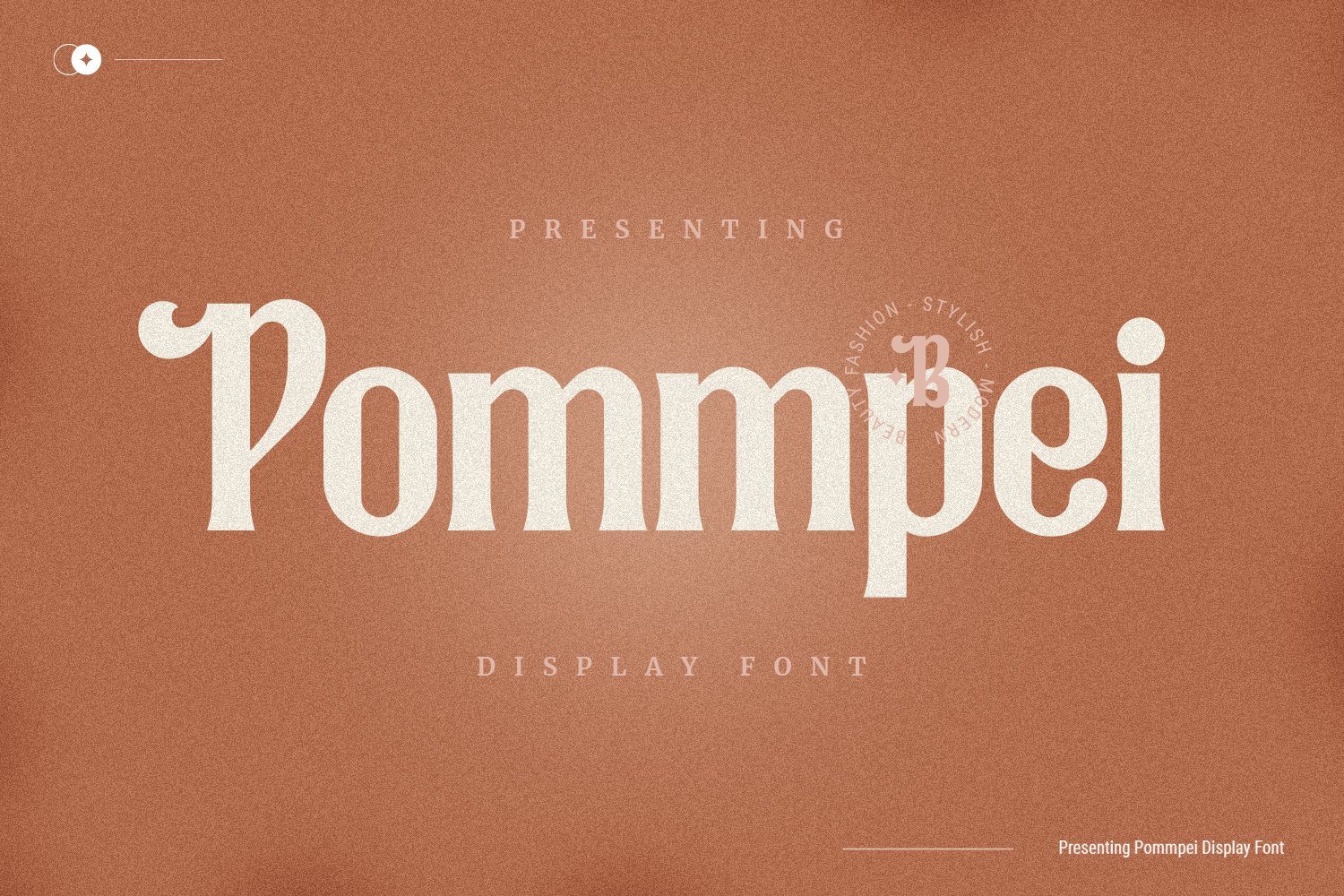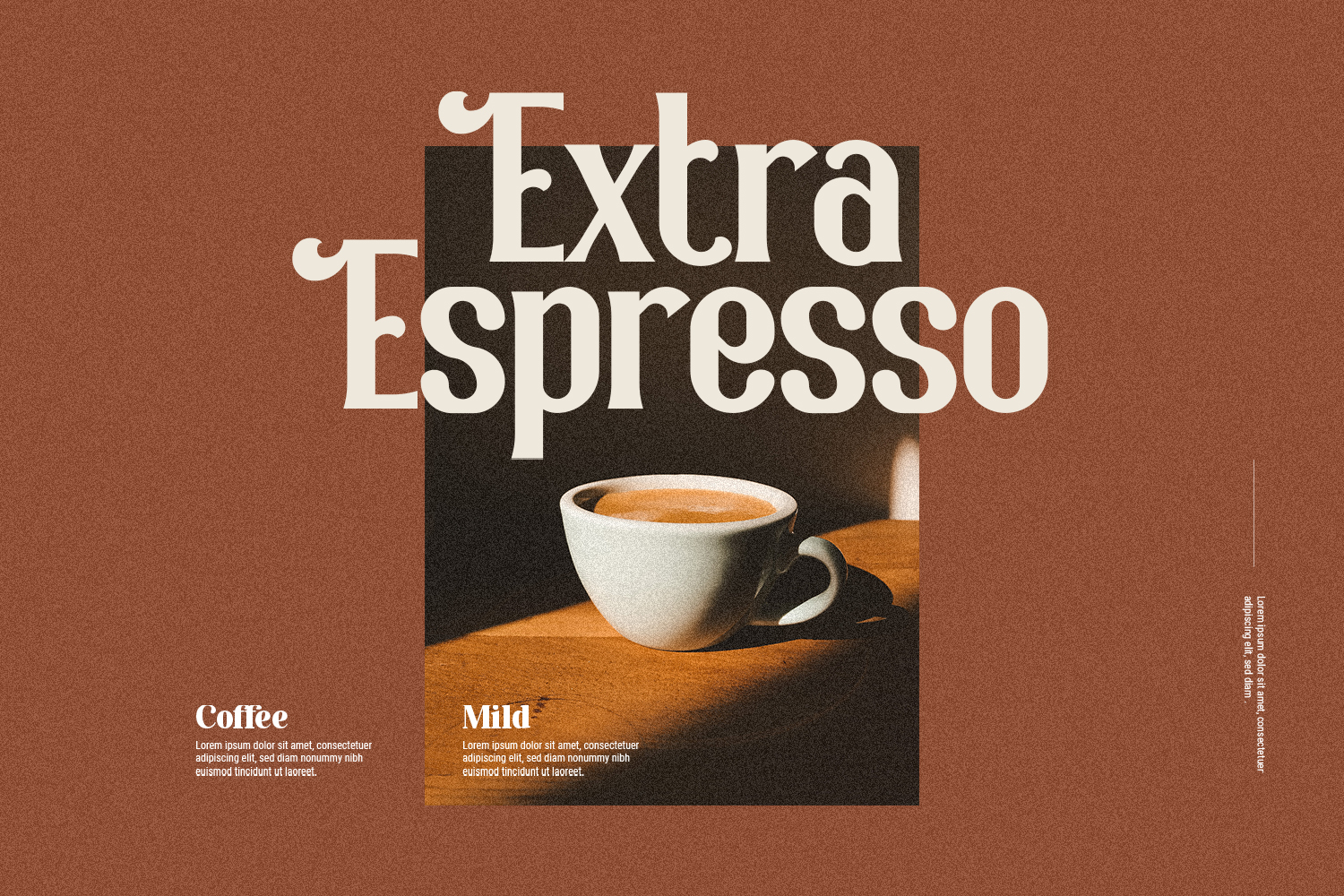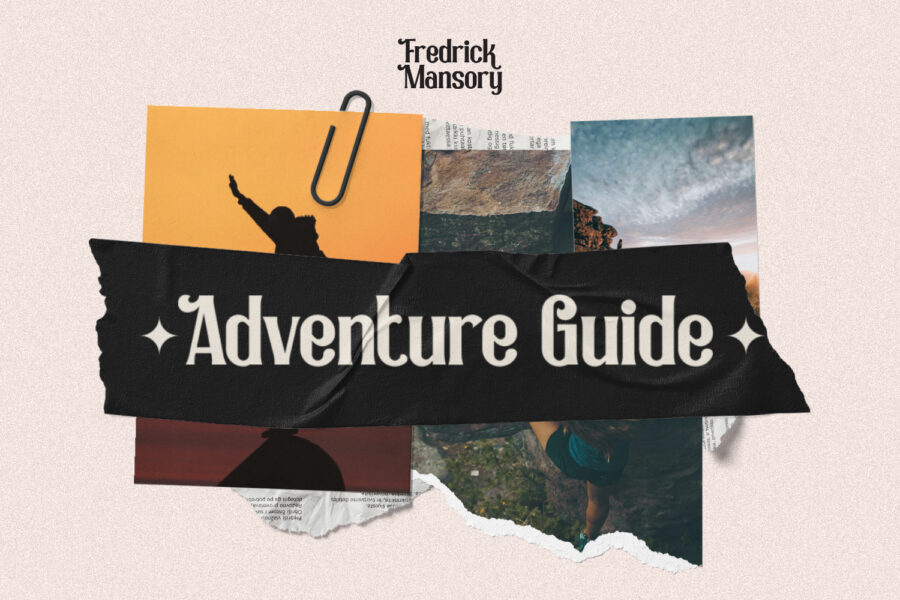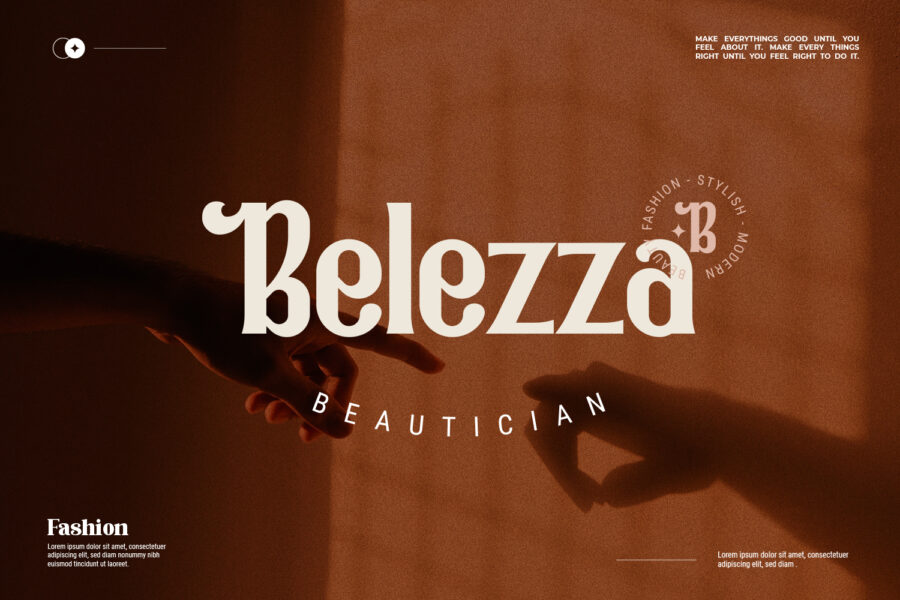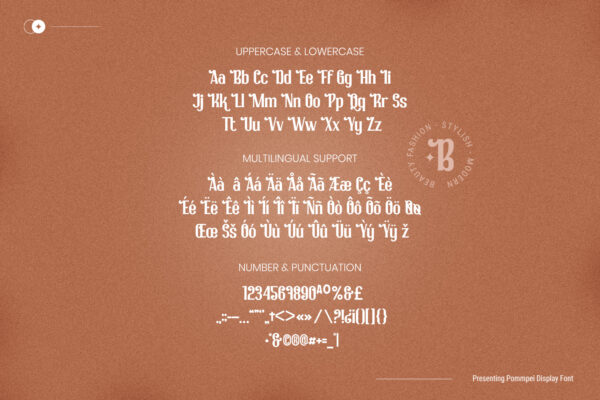
Pommpei is a stylish display font that blends classic elegance with modern charm. Its soft, serif letterforms and high-contrast curves offer a sophisticated touch, while the unique swashes and subtle flair on select characters make it ideal for fashion branding, editorial headlines, packaging, or coffee shop signage. The font radiates a nostalgic warmth, perfect for brands that want to feel both refined and approachable.
Complete with uppercase, lowercase, multilingual support, numbers, and punctuation, Pommpei provides creative versatility for designers. Whether you’re working on lifestyle content, advertising, boutique branding, or artisan product labels, this font delivers an instantly elegant, vintage-inspired aesthetic.
Pommpei